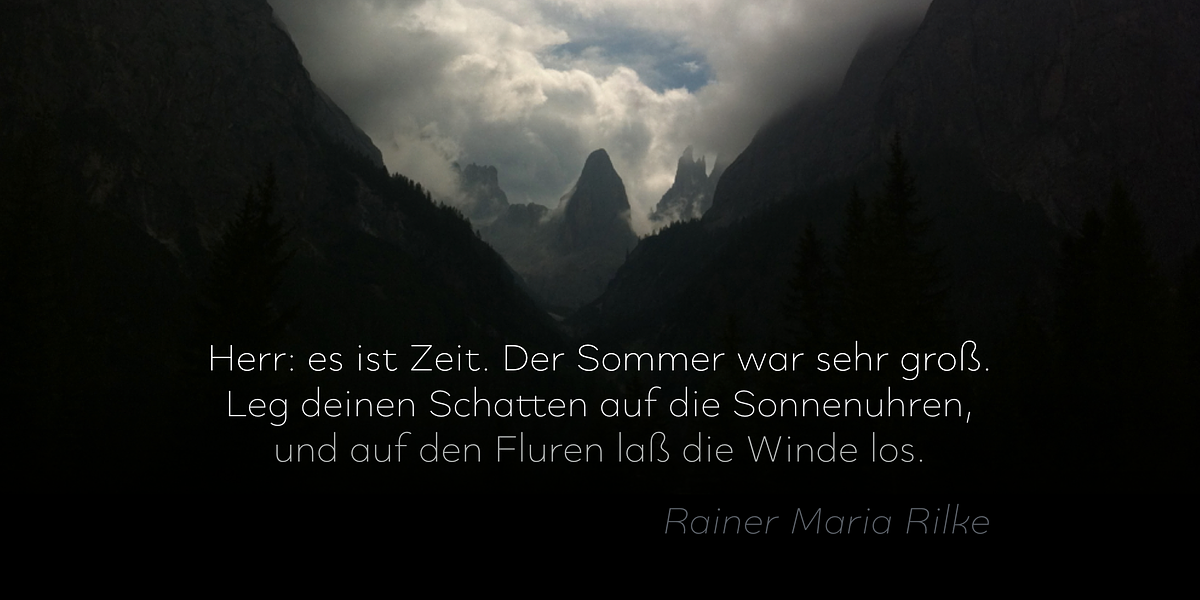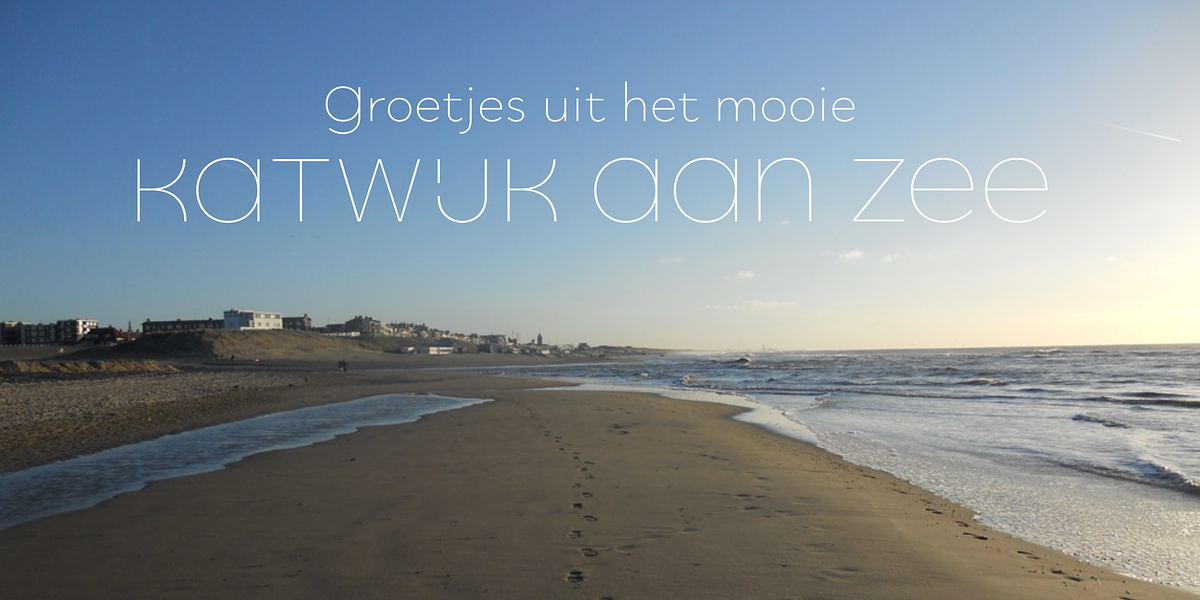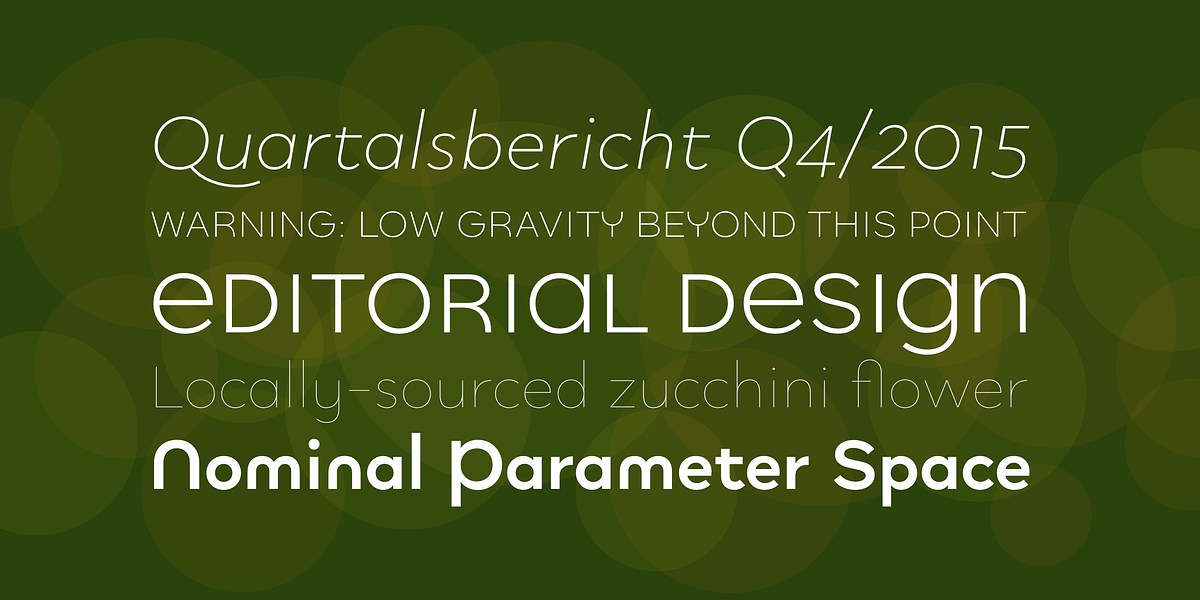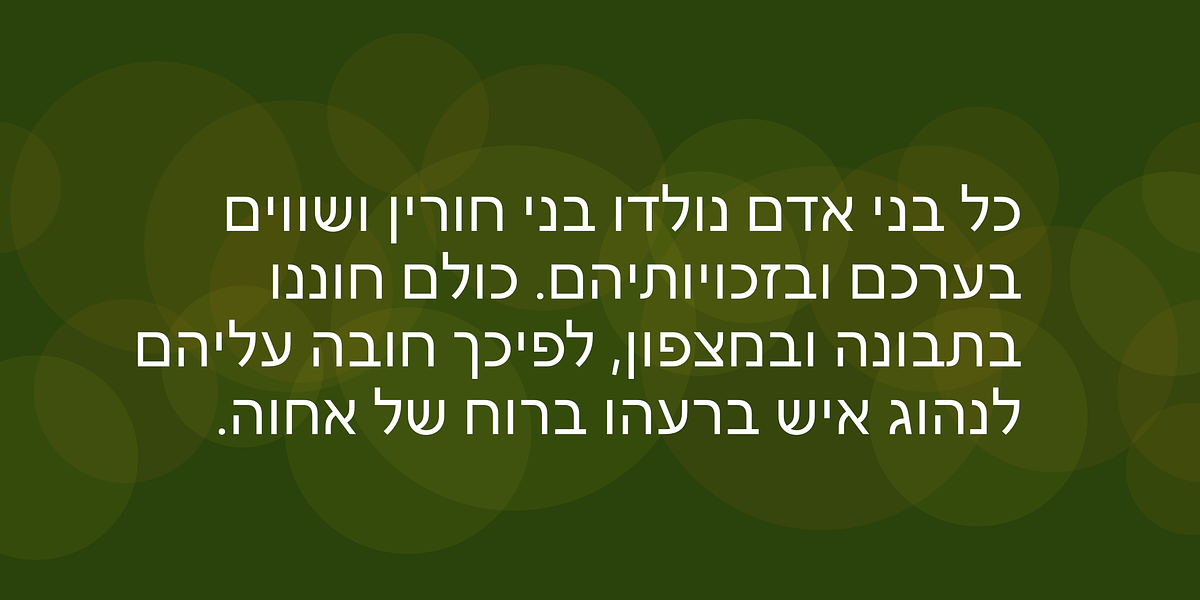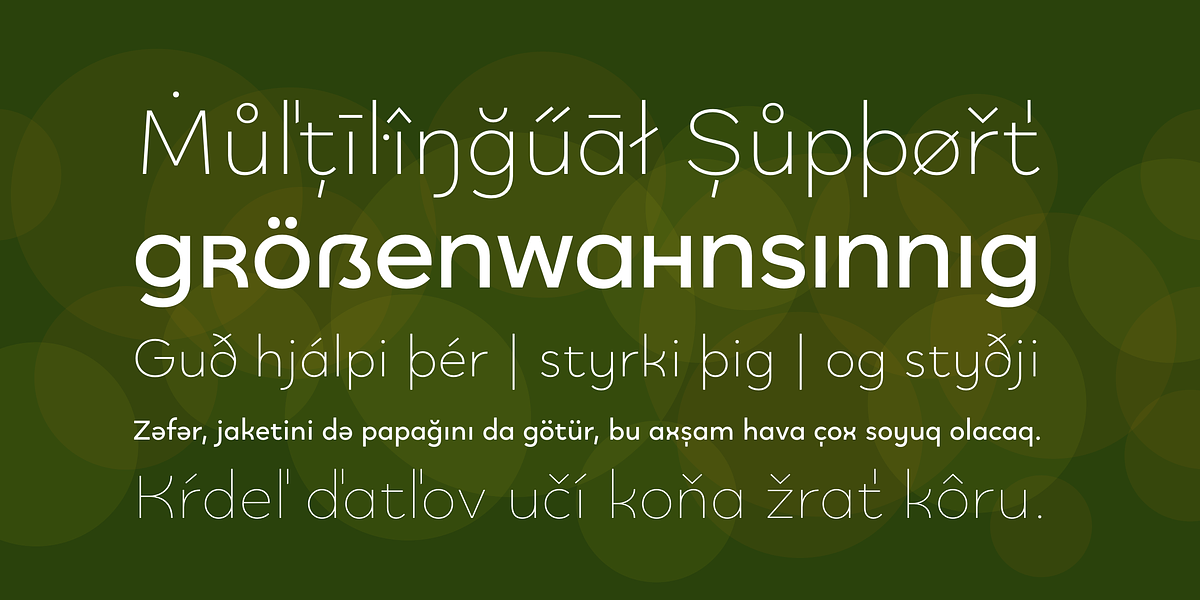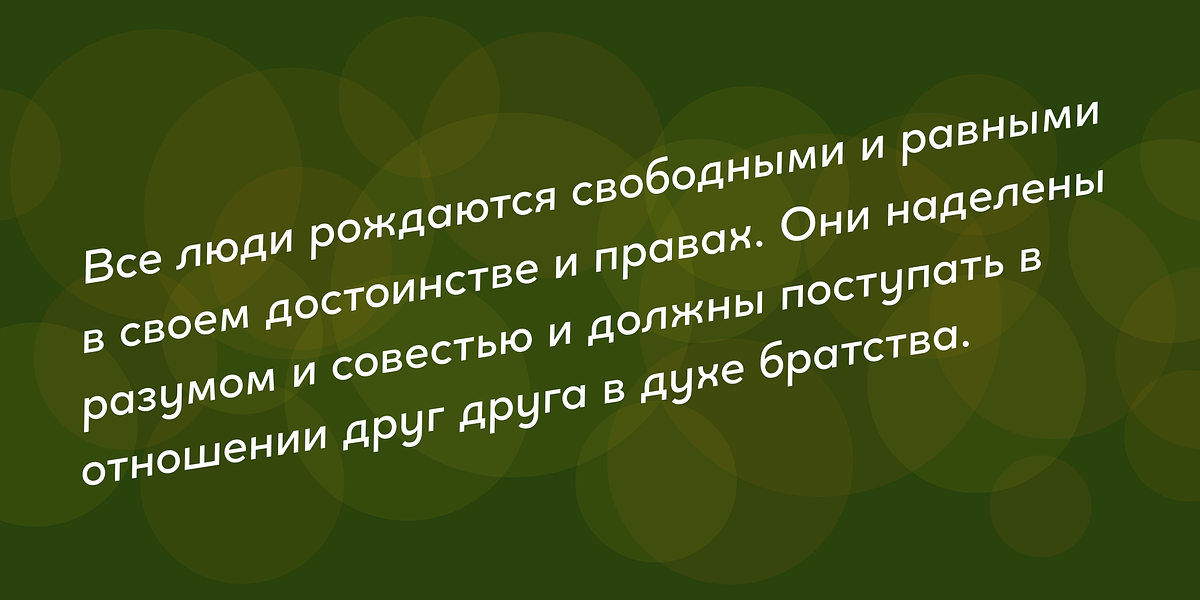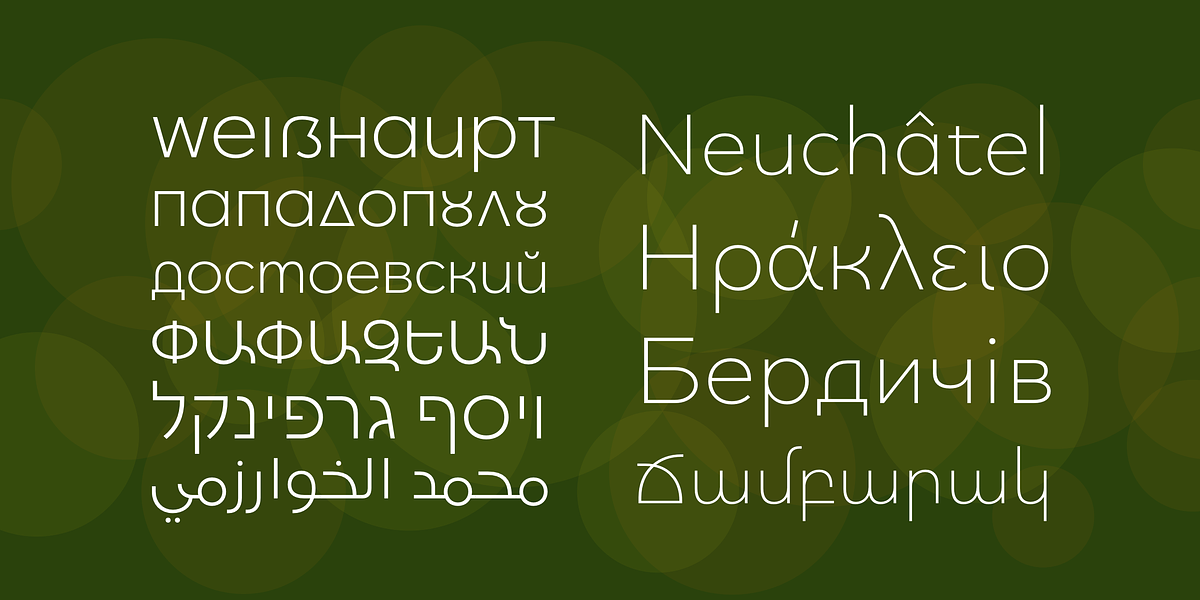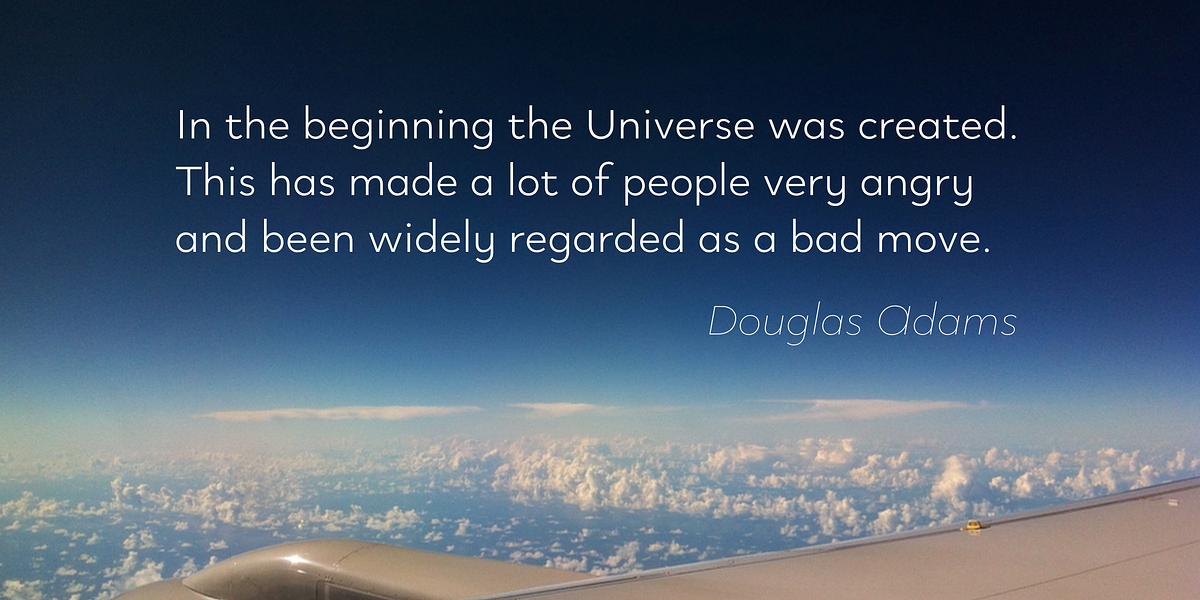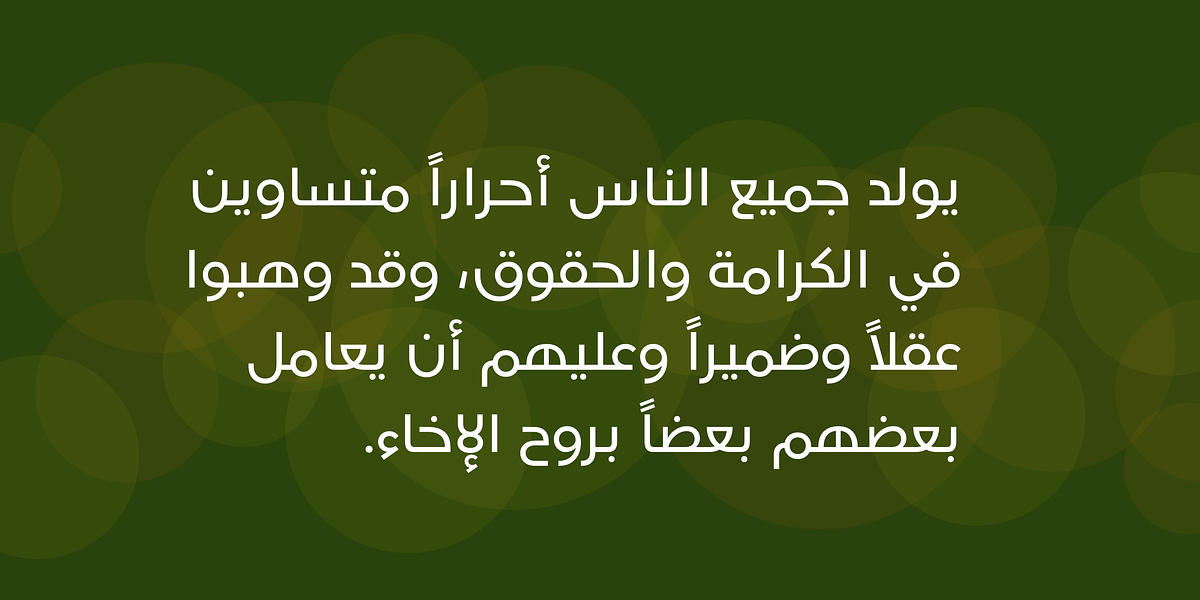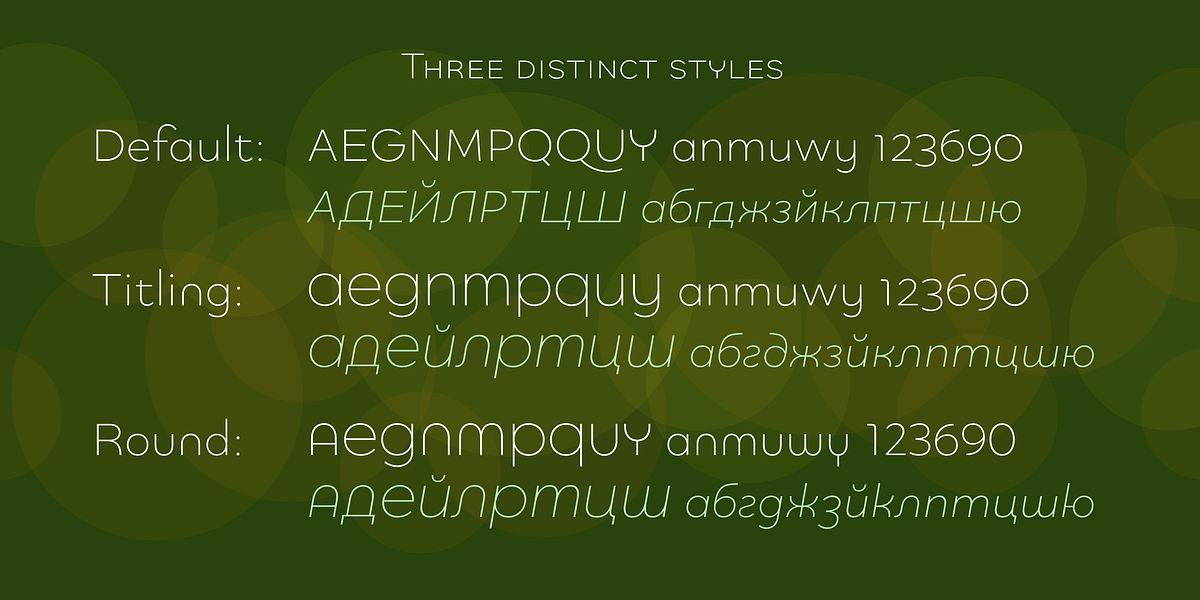
Quinoa
Quinoa is a humanist sans-serif typeface designed by Catharsis Fonts for both display and editorial purposes. Its design balances clean geometric shapes with the organic warmth characteristic of humanist typefaces. The font family includes multiple stylistic cuts, such as Quinoa Titling and Quinoa Round, each offering unique features like lowercase-inspired capital letters and spurless arched letters. Quinoa is also available in a text cut optimized for readability. The extensive OpenType feature set allows for customization with ligatures, contextual alternates, small caps, and various figure sets.